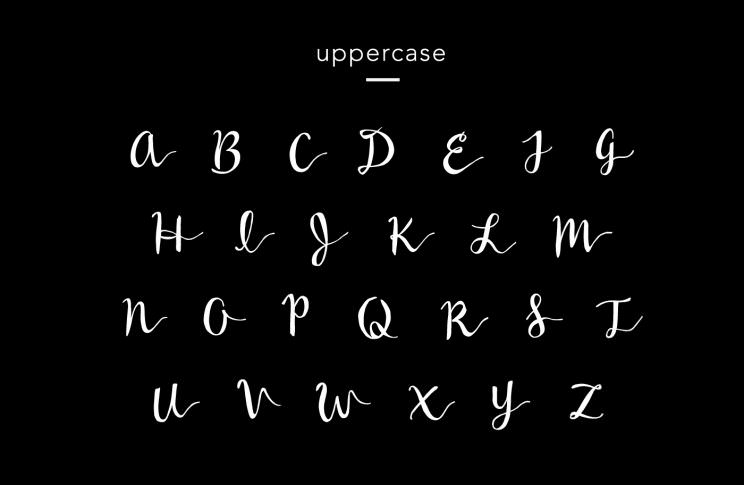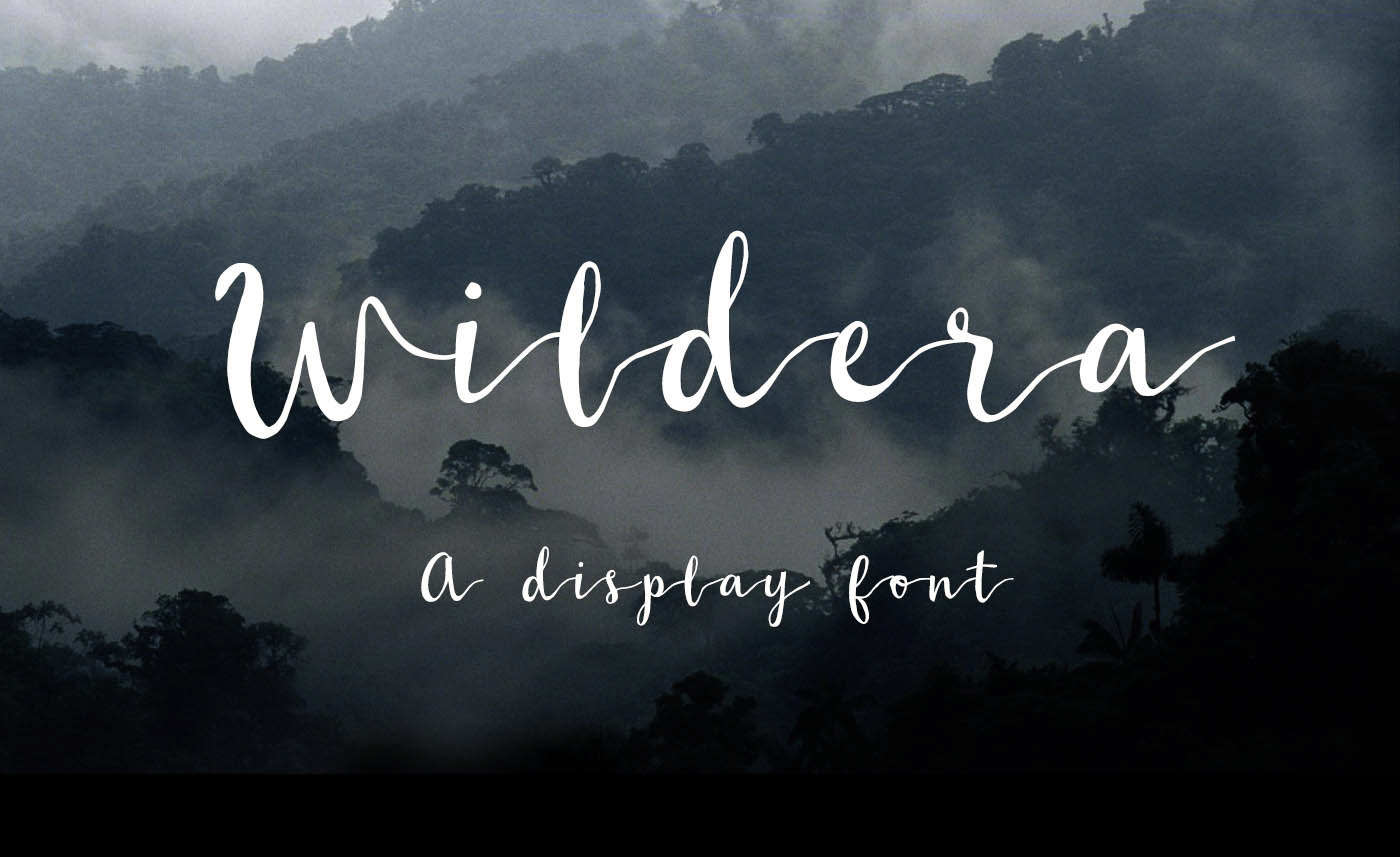
Handwritten fonts have been BOOMING in 2016 and they all look awesome. It’s my pleasure to introduce to you to “Wildera” – a great handwritten font created by Lauren Lee. This one it’s another discovery from Behance, which means that I’m a fan! This typeface comes with stylized lowercase, uppercase and ligature, and it’s also FREE for both personal and commercial use. Its author says that she created it to be feminine, sweet and with a sarcastic touch. The font works great with any type of projects, from logo designs to packaging, stationery or anything you need it for.